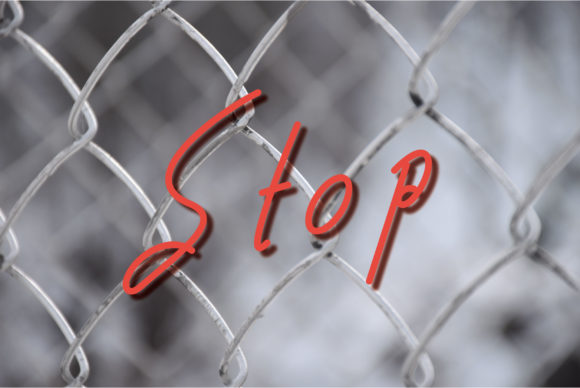
About Stop Font
Stop is a simple and flowing handwritten font. Fall in love with its incredibly distinct and timeless style and use it to create spectacular designs!